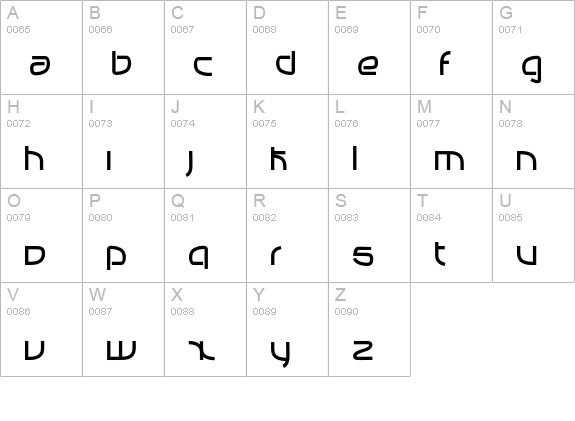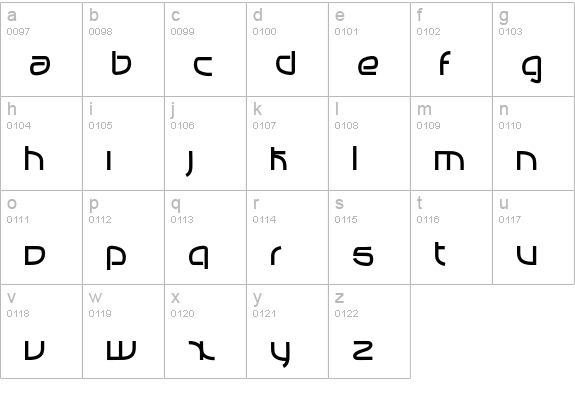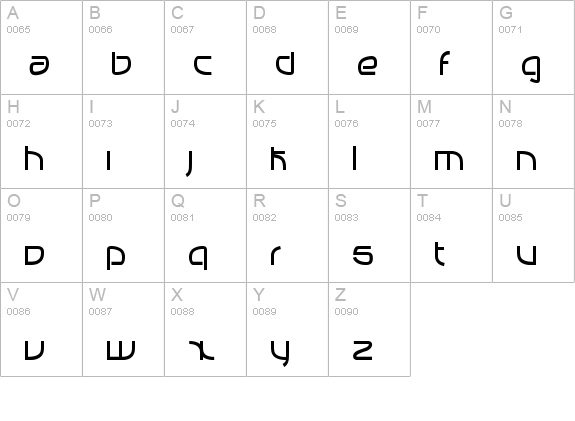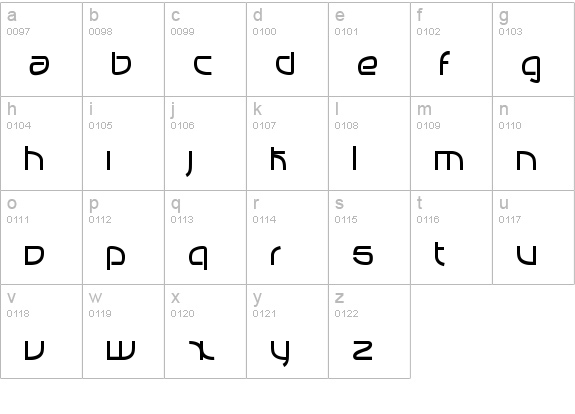
MANABU_ Font Details
MANABU_ font is a beautifully crafted typeface that exudes elegance and sophistication. With its sleek lines and modern style, this font is perfect for a wide range of design projects. The clean and minimalist design of MANABU_ font makes it ideal for both print and digital applications. What sets MANABU_ font apart is that it is completely free to download at FontsMarket.com. Whether you are a professional designer looking for a new font to add to your collection or a hobbyist seeking to enhance your creative projects, MANABU_ font provides a versatile and high-quality option that won't break the bank. Download MANABU_ font today and elevate your designs with this stylish and versatile typeface.